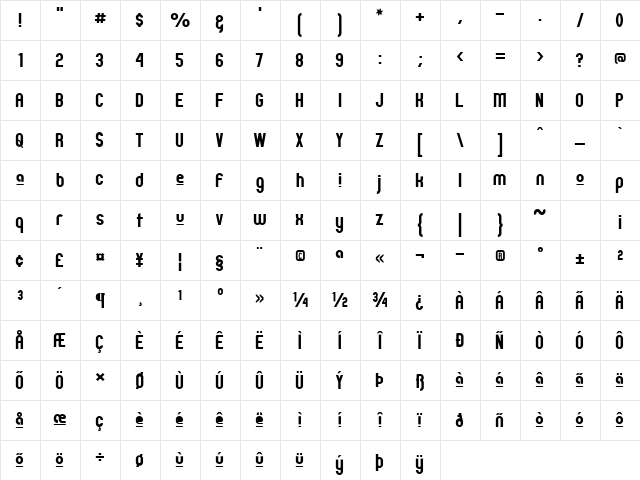
Zillah Modern Upper Regular
Design Context for Zillah Modern Upper Typeface
Zillah Modern Upper is a composed and adaptable typeface that performs quietly and consistently across a wide range of design contexts.